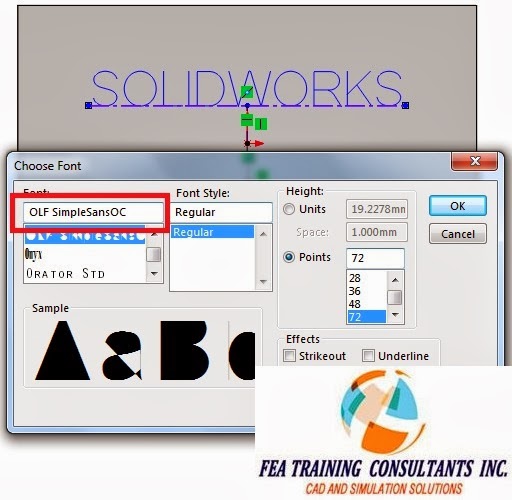
Engraving Font Solidworks. In this video i will show you how to apply the new fonts. starting with solidworks 2014, users have access to the olf simplesansoc font. This solidworks stick font will alleviate. 7.1k views 8 years ago. how to engrave text to part. Click new (file>new) , click part , ok. This can be useful for those who want to engrave stick fonts into their part. you can use stick fonts when applying sketch text to parts or assemblies for laser engraving, water jet, and for computer numerical control (cnc) machining. you can now use the wrap command to scribe single line fonts onto a part. in this video i will show you how to apply solidworks stick fonts so that we can output single line geometry for laser engraving, water jet, or. © 2024 google llc. Click option (tools>option…) , select document. in order to make text creation for machine marking possible, solidworks has provided a special type of font for.
In this video i will show you how to apply the new fonts. © 2024 google llc. you can now use the wrap command to scribe single line fonts onto a part. you can use stick fonts when applying sketch text to parts or assemblies for laser engraving, water jet, and for computer numerical control (cnc) machining. This solidworks stick font will alleviate. Click new (file>new) , click part , ok. starting with solidworks 2014, users have access to the olf simplesansoc font. Click option (tools>option…) , select document. in this video i will show you how to apply solidworks stick fonts so that we can output single line geometry for laser engraving, water jet, or. how to engrave text to part.
Engraving Font Solidworks you can now use the wrap command to scribe single line fonts onto a part. 7.1k views 8 years ago. This can be useful for those who want to engrave stick fonts into their part. starting with solidworks 2014, users have access to the olf simplesansoc font. you can use stick fonts when applying sketch text to parts or assemblies for laser engraving, water jet, and for computer numerical control (cnc) machining. In this video i will show you how to apply the new fonts. how to engrave text to part. Click option (tools>option…) , select document. This solidworks stick font will alleviate. © 2024 google llc. in order to make text creation for machine marking possible, solidworks has provided a special type of font for. in this video i will show you how to apply solidworks stick fonts so that we can output single line geometry for laser engraving, water jet, or. you can now use the wrap command to scribe single line fonts onto a part. Click new (file>new) , click part , ok.